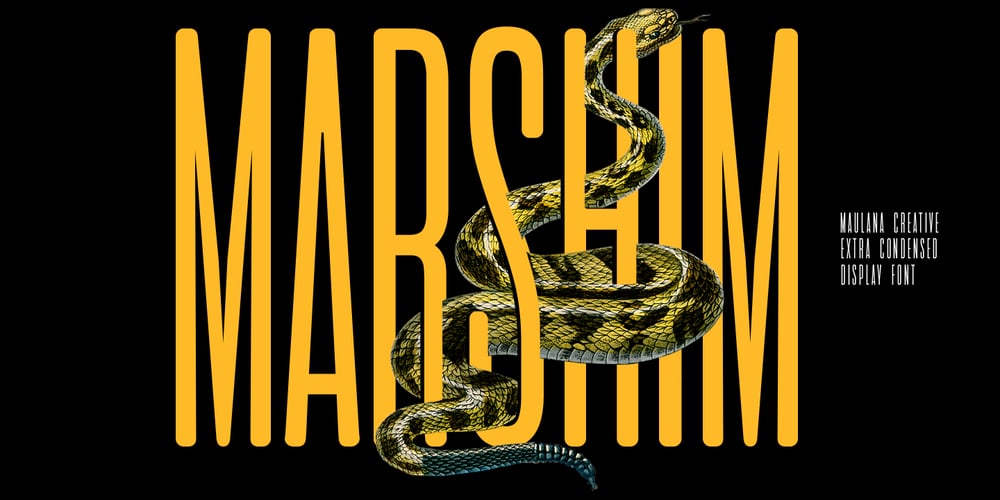
MC Marshim Font Family was designed by Gilang Maulana and published by Maulana Creative. MC Marshim contains 2 styles and family package options. Marshim is a Condensed Display font. Regular stroke, fun character with a bit of ligatures and alternates. To give you an extra creative work. Marshim font support multilingual more than 100+ language. This font is good for logo design, Social media, Movie Titles, Books Titles, a short text even a long text letter and good for your secondary text font with script or serif. Make a stunning work with Marshim font. Cheers, Maulana Creative